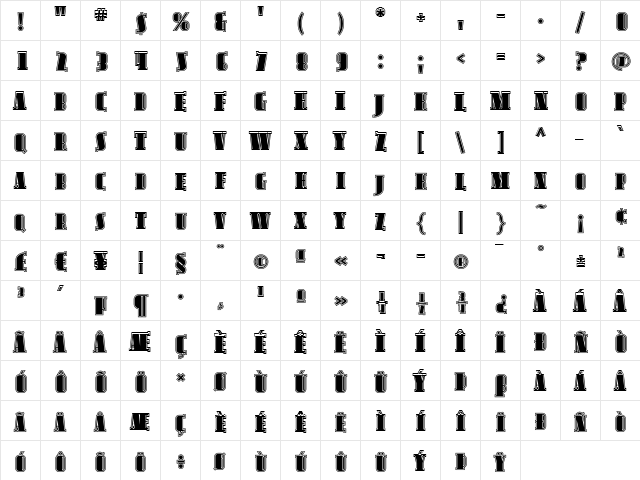
Avondale SC Inline Regular
| Designer | Derek Vogelpohl |
Design Context for Avondale SC Inline Typeface
Avondale SC Inline brings ornamental detail and strong personality to headlines and identities, where visual impact matters more than quiet functionality.
Font Pairing: Pair with a clean neutral sans-serif for body copy to let Avondale SC Inline's character lead without overwhelming the composition.
Pro Tip: Treat Avondale SC Inline as the centrepiece of your typographic hierarchy. One strong heading set in a decorative face can carry an entire layout.